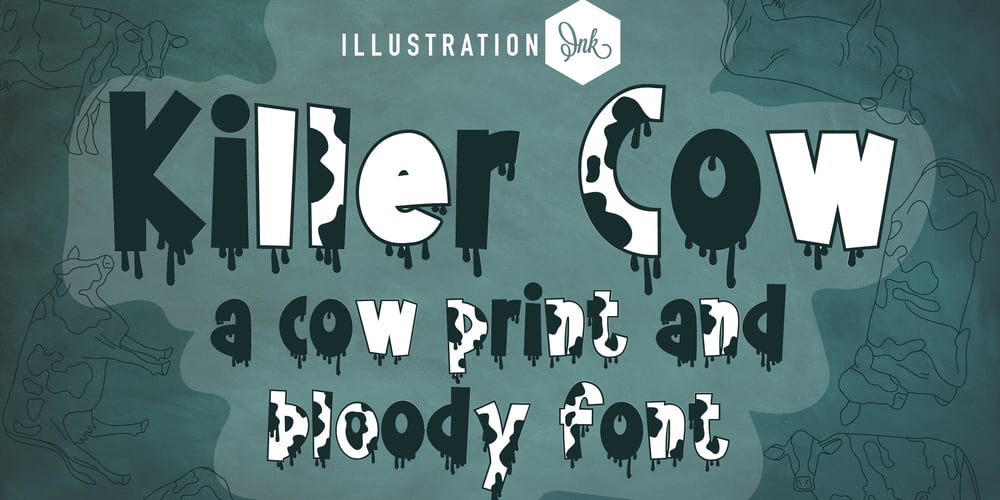
ZP Killer Cow Font Family was designed by Illustration Ink and published by Illustration Ink. ZP Killer Cow contains 1 styles and family package options. This chunky sans serif has a solid, white out, and cow-printed lettering dripping in blood and ooze.A hand-crafted font is a font that is designed to look like it was written by hand. It is often used for invitations, greeting cards, and other items. Handwritten fonts can be either formal or informal, and they can be used for a variety of purposes.Some of the characteristics of handwritten fonts include: The letters are not perfectly uniform in size or shape. There may be slight variations in the spacing between letters and words. The font may have a “wiggly” or “squiggly” appearance. The font may be difficult to read at small sizes. Handwritten fonts can be a great way to add a casual touch to your designs. They can also be used to create a sense of nostalgia or whimsy. However, it is important to choose a handwritten font that is appropriate for the project you are working on. A formal handwritten font may not be appropriate for a casual invitation, while an informal handwritten font may not be appropriate for a corporate document.